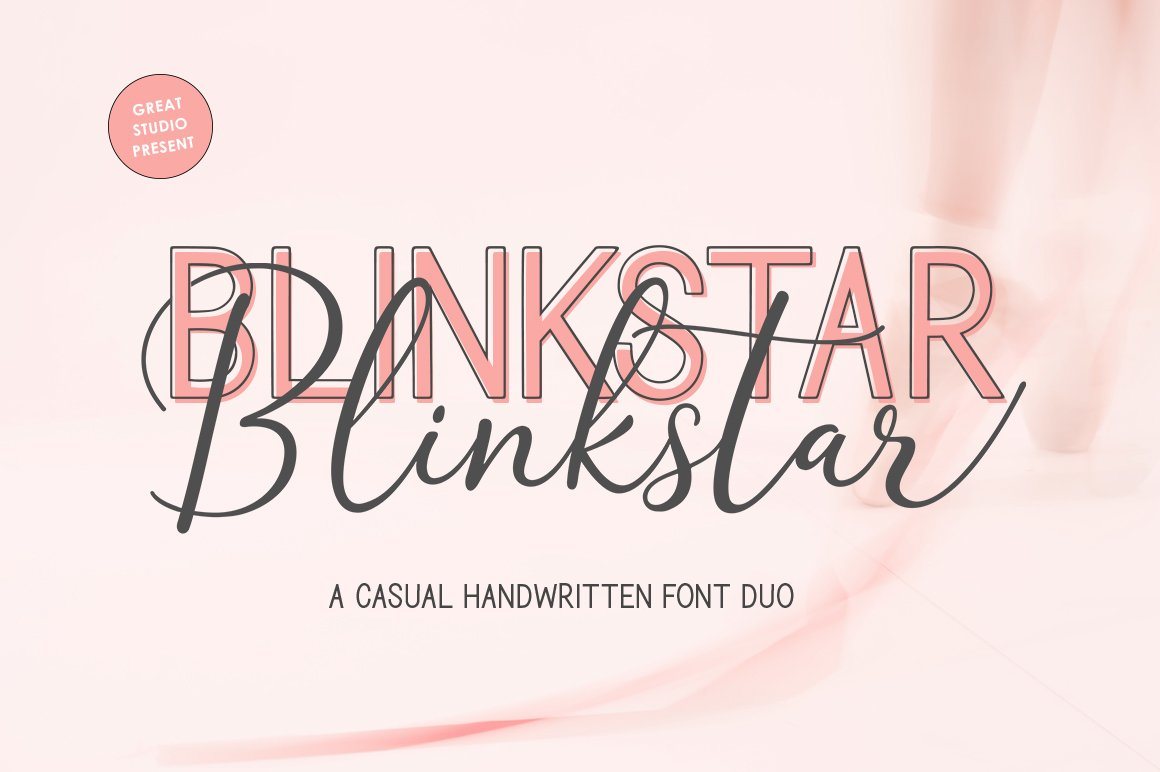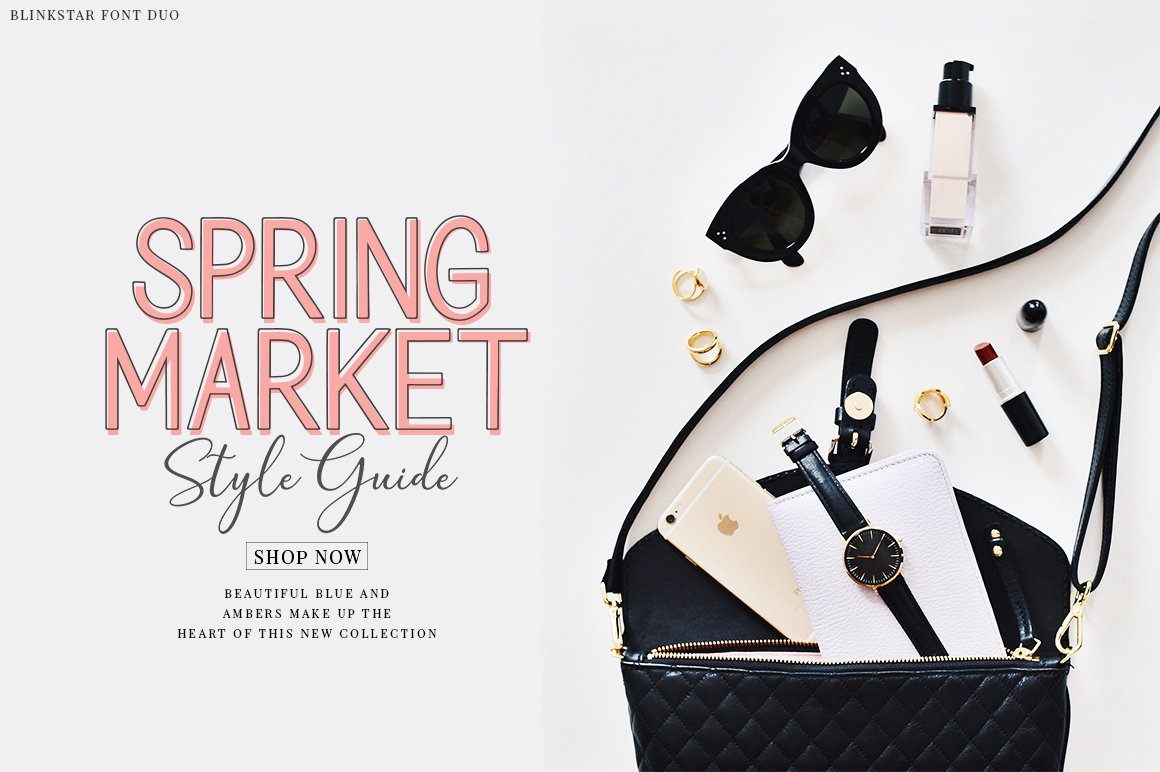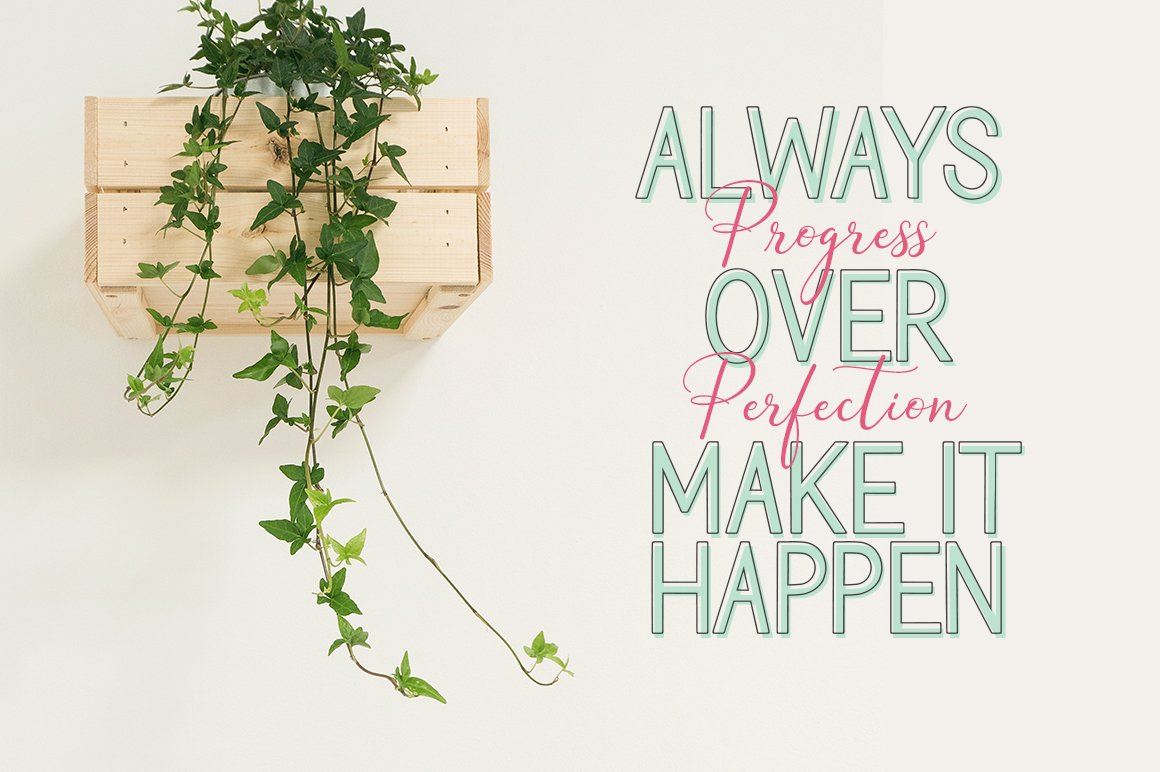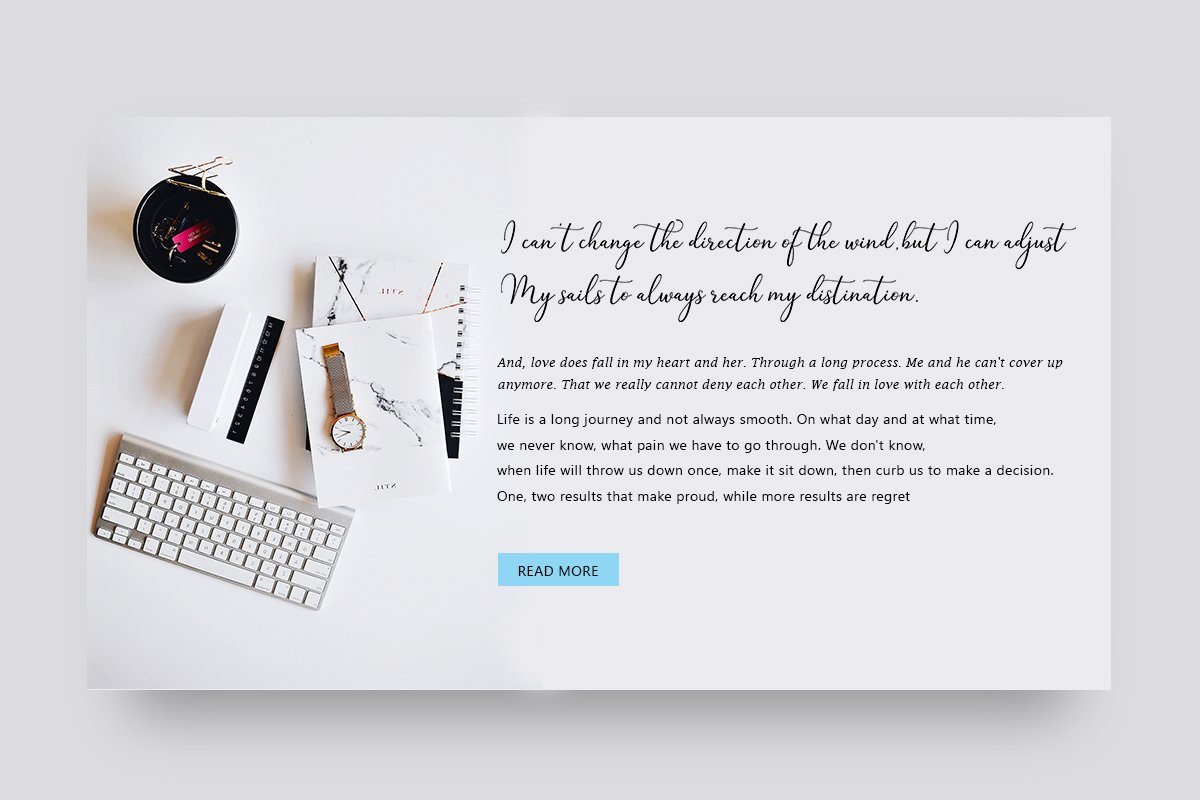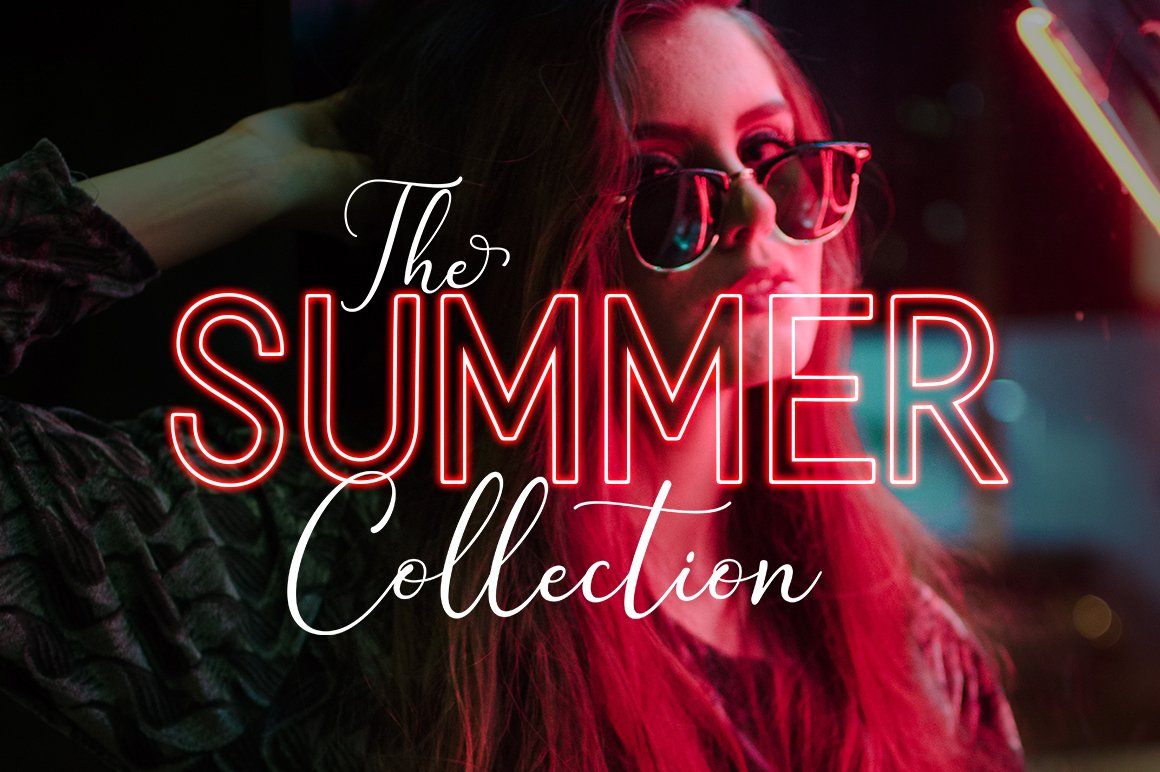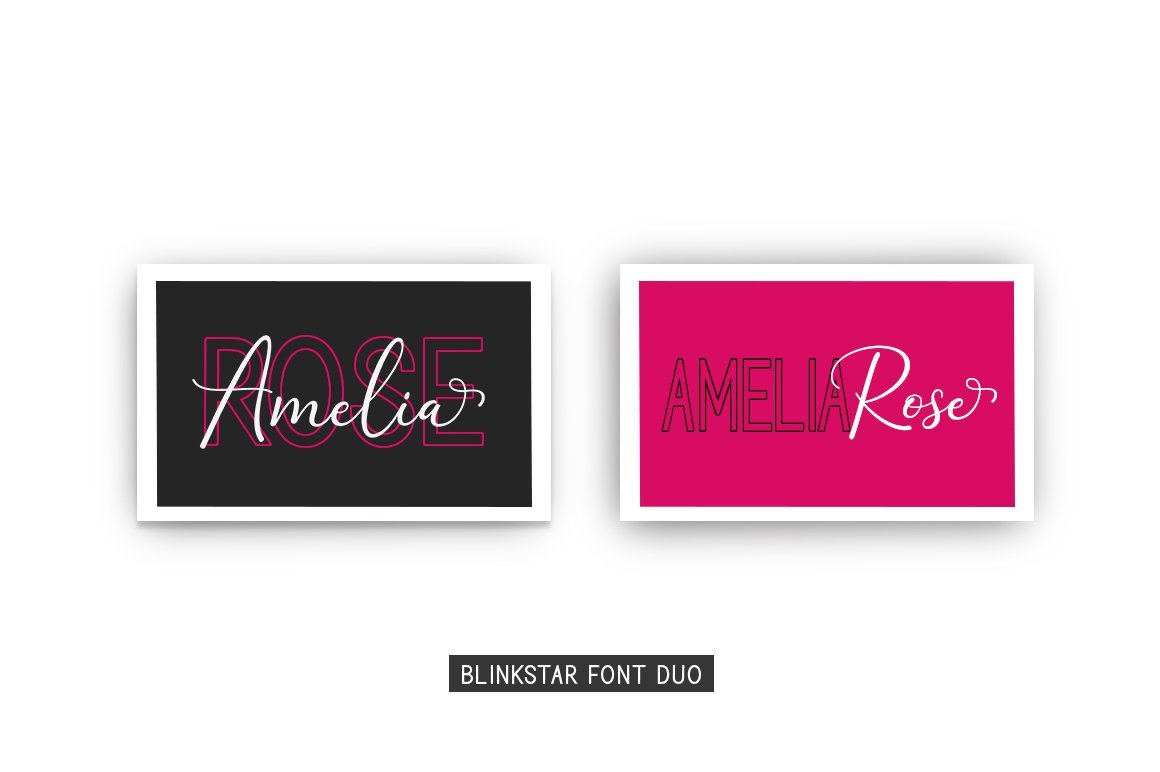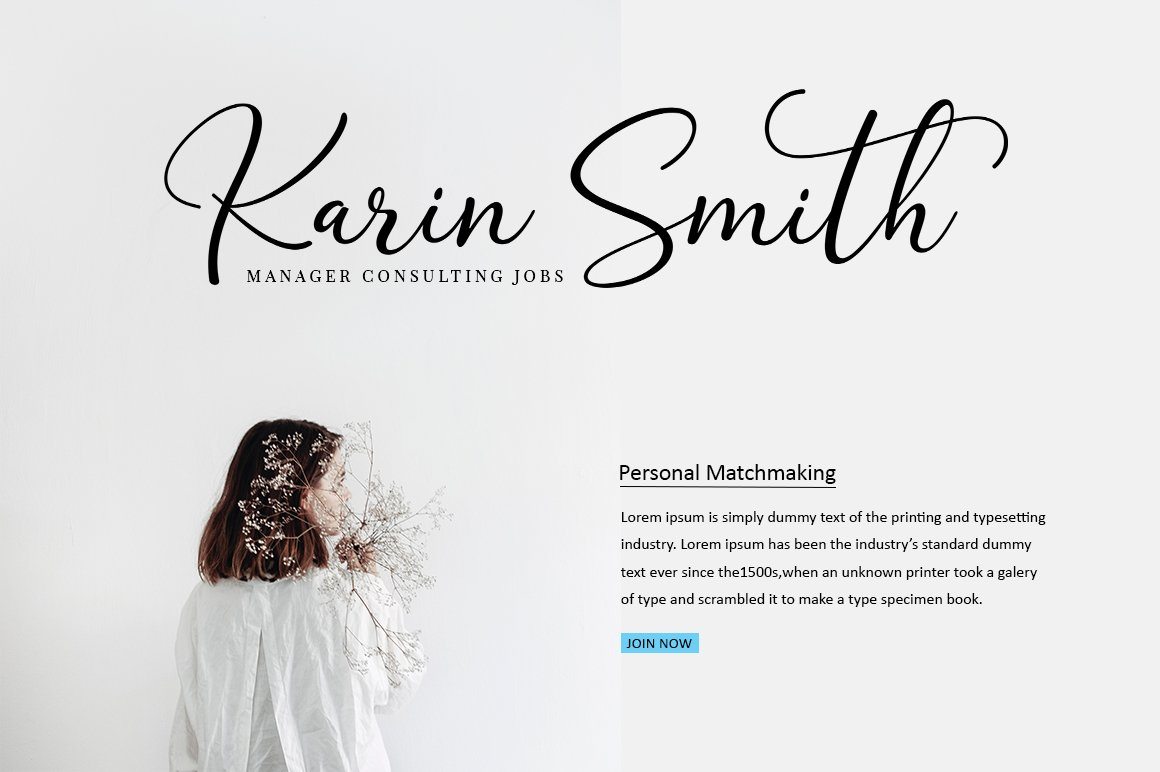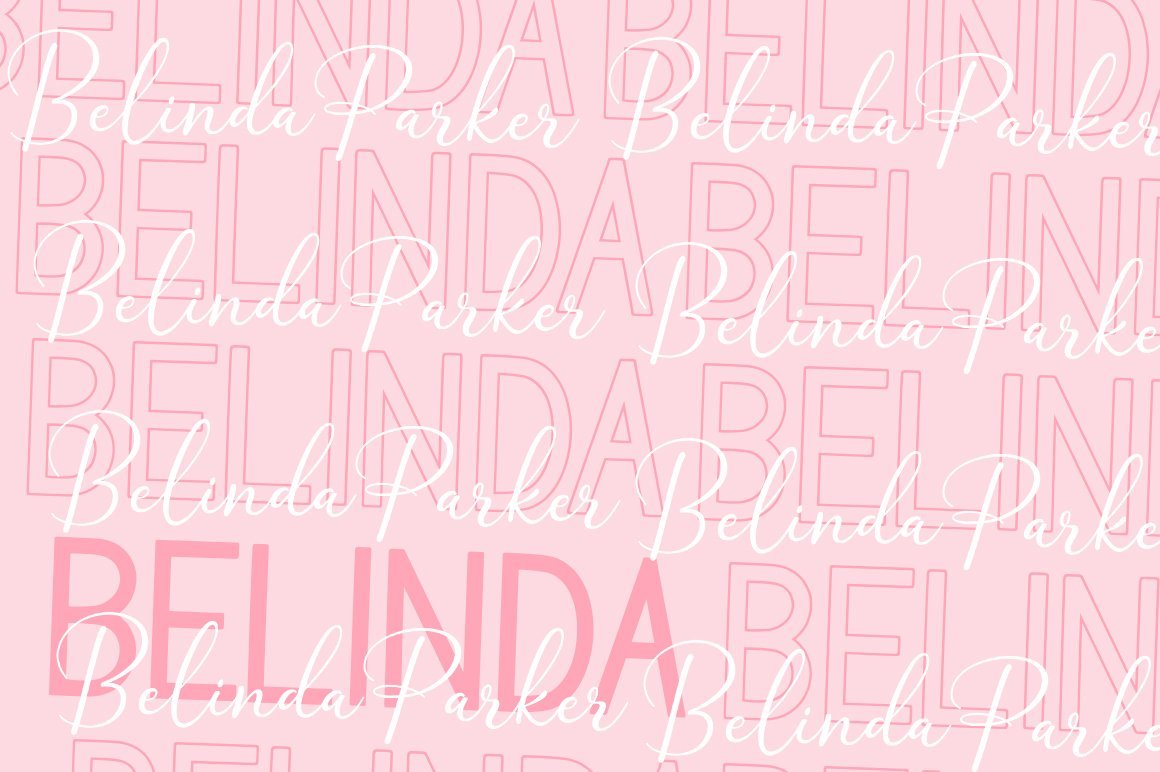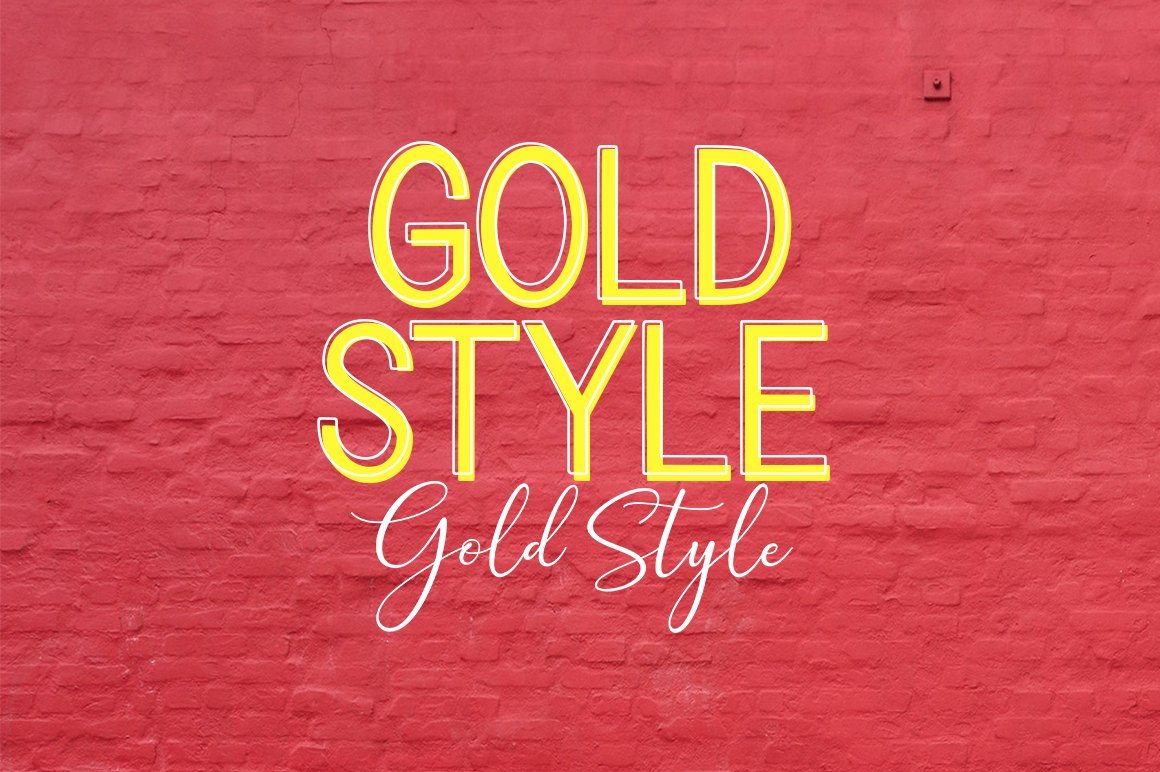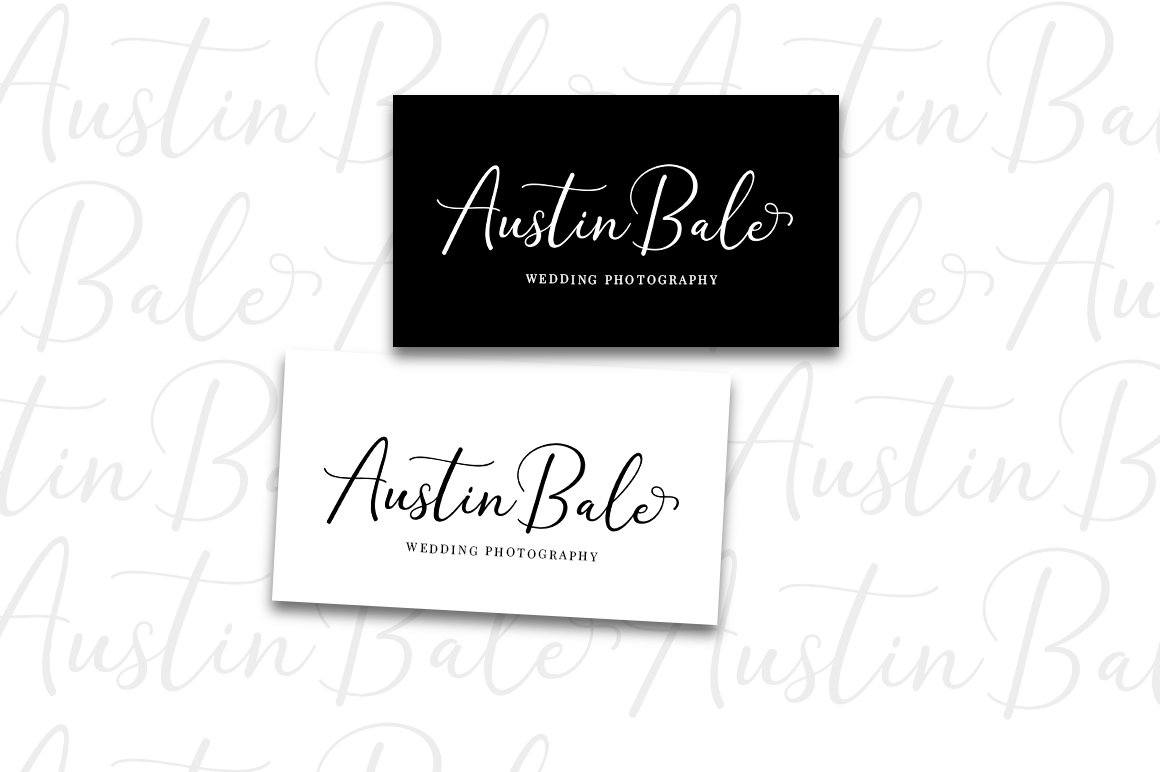
Blinkstar Font Duo
About Blinkstar Font Duo
Blinkstar Font Duo is a playful script containing many choices of alternative characters to choose from as well as ligatures that look natural to add to the authenticity of letters. A collection of strange and initial swash tips is also included to add finishing touches or fill the design space in your type design. Blinkstar scripts are calligraphy handwriting fonts, loaded with awesome opentype features, and full alternative upper and lower case character sets. make custom letters a dream thanks to all the extra decorative choices you can enter for beautiful and unique customizations – swash, endings, alternative letters and ligatures all make it the prettiest little thing since tutus and tiara. Designed to work harmoniously, this duo font consists of super fine and casual signature scripts and a complete and clean set of all sans serif letters. Sans Serif fonts consist of two outline fonts of different weights, and a regular version. Layer them with different colors and turbidity to get a million different views. This font is perfect for branding, logos, web and editorial design, branding, prints, invitations, crafts, quotes, and more. Including Files: • Blinkstar Script • Blinkstar Sans Regular • Blinkstar Sans Outline To enable the OpenType Stylistic alternates, you need a program that supports OpenType features such as Adobe Illustrator CS, Adobe Indesign & CorelDraw X6-X7, Microsoft Word 2010 or later versions. How to Access Alternate Characters : • https://www.youtube.com/watch?v=xFlMwARHusY • https://www.youtube.com/watch?v=XzwjMkbB-wQ There are additional ways to access alternates/swashes, using Character Map (Windows), Nexus Font (Windows), Font Book (Mac) or a software program such as PopChar (for Windows and Mac). How to access all alternative characters, using Windows Character Map with Photoshop: • https://www.youtube.com/watch?v=Go9vacoYmBw Need help? If you need help or advice, please contact me by e-mail ‘  ‘ Thank you for your purchase!